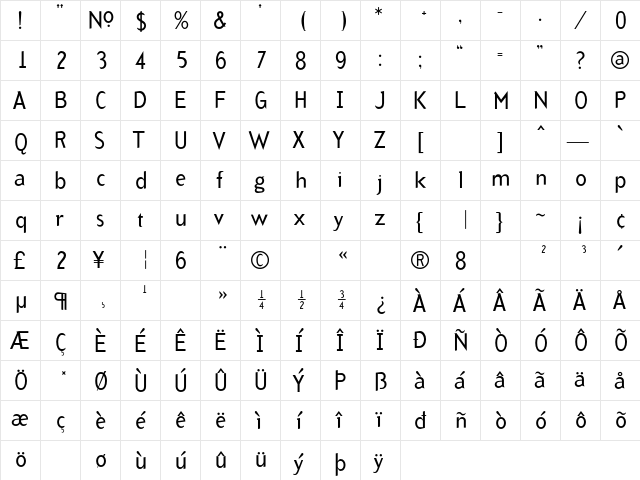
ArbitraryRegular Regular
Design Context for ArbitraryRegular Typeface
ArbitraryRegular is a composed and adaptable typeface that performs quietly and consistently across a wide range of design contexts.